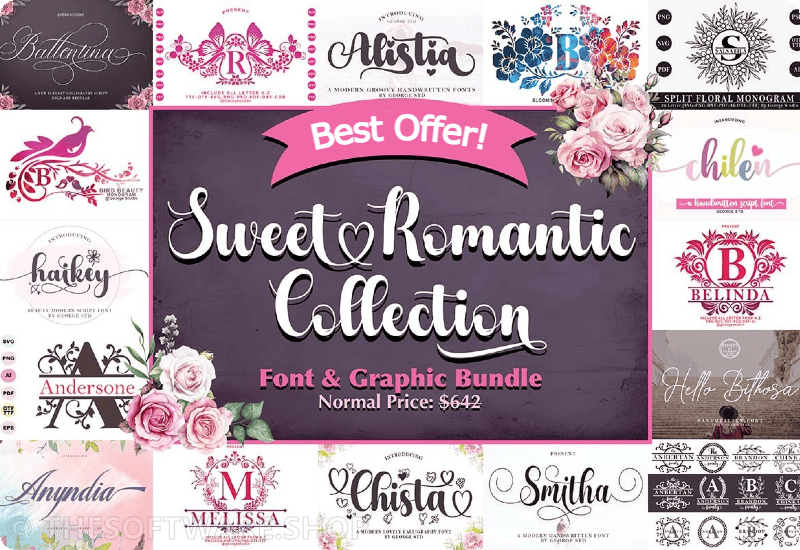
Elevate Your Designs with a Versatile Font Library
Imagine having an arsenal of 43 premium fonts at your fingertips. This carefully curated collection appeals to a vast array of tastes and styles.
From the cozy charm of ‘Family Monogram Decorative Font’ to the elegant flow of ‘Thanksgiving Script & Handwritten Font,’ your typography game is about to level up.
- Family Monogram Decorative Font
- Gadiya Polices Manuscrites Police
- Thanksgiving Script & Handwritten Font
- Ballentina Script & Handwritten Font
- Alistia Script & Handwritten Font
- Chilen Fuentes Caligráficas Fuente
- Lovely Decorative Font
- Hello Bithosa Polices Manuscrites Police
- Haikey Script & Handwritten Font
- Boner Decorative Font
- Chista Script & Handwritten Font
- Glista Script & Handwritten Font
- Smitha Script & Handwritten Font
- Rossella Butterfly Monogram Decorative Font
- Binton Script & Handwritten Font
- Bird Beauty Monogram Decorative Font
- Melissa Decorative Font
- Salsabila Monogram Decorative Font
- Handmade Lights Script & Handwritten Font
- Akesta Script & Handwritten Font
- Mitha Monogram Decorative Font
- Arsilia Decorative Font
- Blossom Monogram Decorative Font
- Kiss Decorative Font
- Andersone Decorative Font
- Saphia Monogram Decorative Font
- Chima Script & Handwritten Font
- Miller Decorative Font
- Butterfly Monogram Decorative Font
- Anyndia Script & Handwritten Font
- Bones Decorative Font
- Belinda Monogram Decorative Font
- Ghina Halloween Monogram Decorative Font
- Geliana Monogram Decorative Font
- Blooming Monogram Decorative Font
- Mother Decorative Font
- Royanne Monogram Decorative Font
- Melista Monogram Decorative Font
- Alistia Halloween Monogram Decorative Font
- Catty Monogram Decorative Font
- Romantica Monogram Decorative Font
- Jullia Monogram Decorative Font
Each font, crafted by top designers, is multifaceted and promises to be a perfect fit for wedding invitations, branding, social media graphics, and more.
Take ‘Ballentina’ and ‘Alistia,’ for instance — their script and handwritten aesthetics offer an authentic touch to your designs, making them ideal for personal blogs, boutique branding, and heartwarming greeting cards.
And for more decorative needs, fonts like ‘Chilen Fuentes Caligráficas’ and ‘Lovely Decorative Font’ offer characterful flourishes that can turn any simple design into a work of art.
- Versatility: With a diverse range of styles, you can cater to any design need that comes your way.